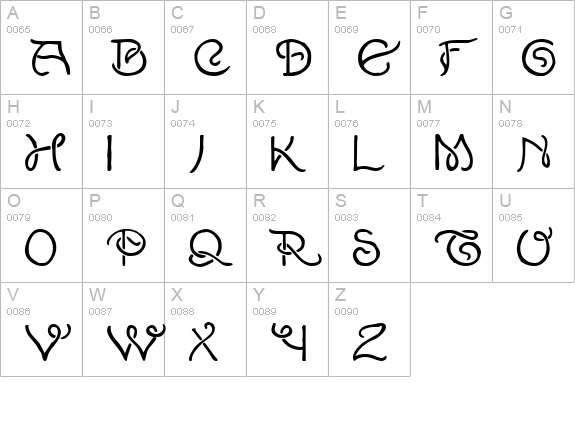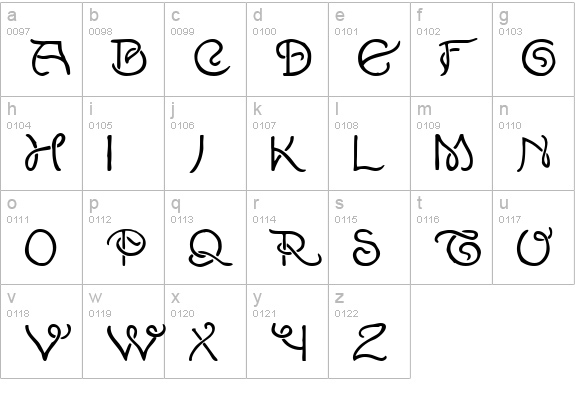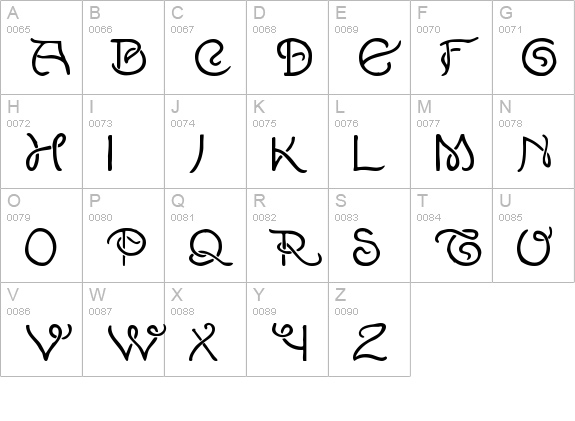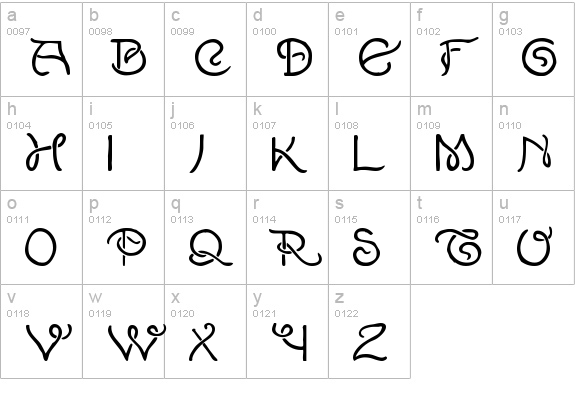
Introducing the remarkable Lewis F. Day 191 font, a stunning typeface that seamlessly blends classic elegance with modern sophistication. This versatile font is perfect for adding a touch of timeless charm to any design project, whether it be print or digital. Lewis F. Day 191 boasts an extensive character set, allowing you to effortlessly create captivating typography that captures attention and exudes professionalism. Its clean lines and refined letterforms make it suitable for a wide range of applications, from branding and logos to headlines and body text. What sets Lewis F. Day 191 apart is not only its impeccable design, but also its accessibility. This extraordinary font can be freely obtained, making it an ideal choice for both personal and commercial use. Whether you're a professional designer or an aspiring creative, Lewis F. Day 191 offers an incredible opportunity to enhance your work without breaking the bank. To get your hands on this extraordinary typeface, simply visit FontsMarket.com, where Lewis F. Day 191 is available for free download. Unlock endless design possibilities and elevate your projects with this exceptional font, all at no cost to you. Don't miss out on this incredible opportunity to add a touch of sophistication to your designs. Download Lewis F. Day 191 today and experience the seamless blend of classic elegance and modern flair that this font effortlessly embodies.